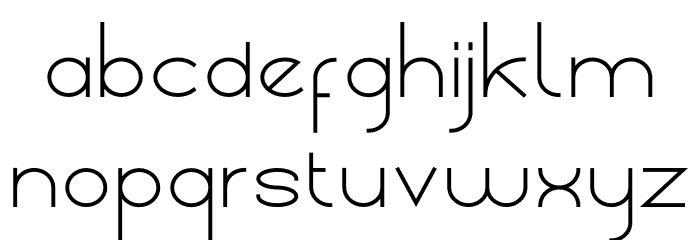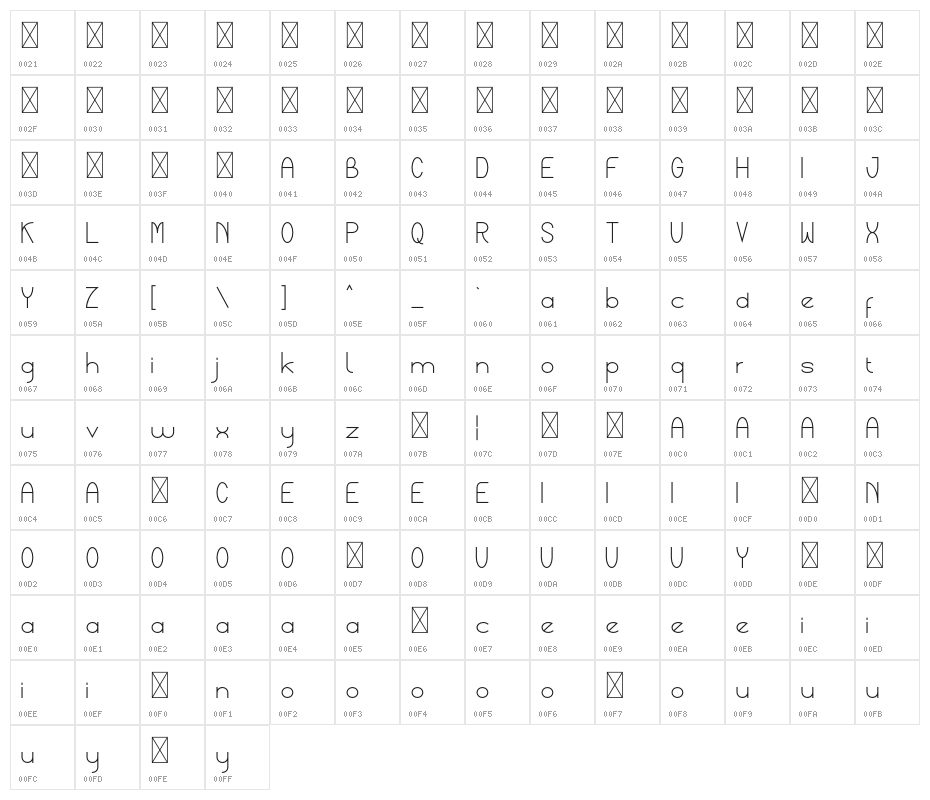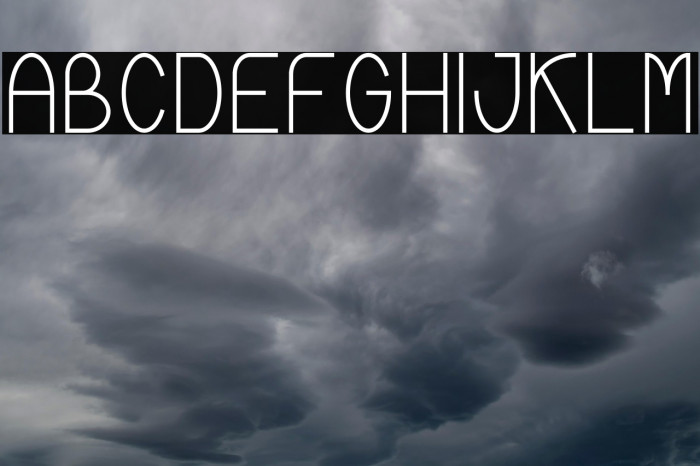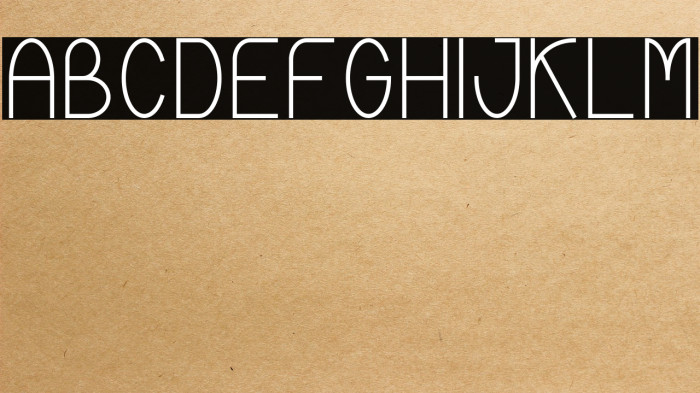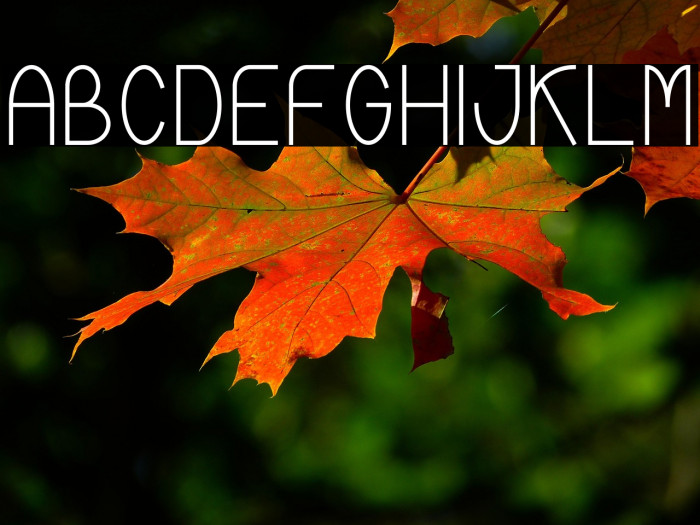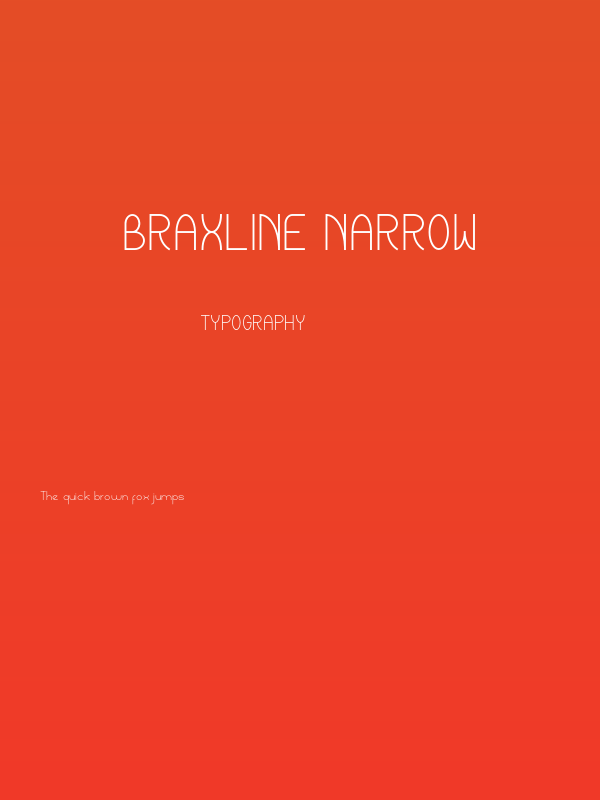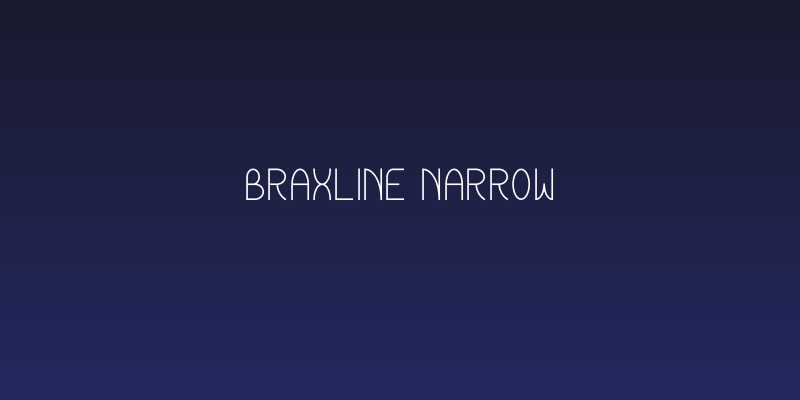
Braxline Narrow Font
This font features a clean and modern design with a narrow structure. The characters are elongated with a consistent stroke width, giving it a sleek and contemporary appearance. The uppercase letters maintain a geometric form, while the lowercase letters are slightly more rounded, providing a subtle contrast. The overall design is minimalistic, making it suitable for a variety of applications where a modern and understated look is desired. The font lacks any decorative elements, focusing instead on clarity and simplicity.
A modern, narrow font with a clean and geometric design.
- Font: Braxline Narrow